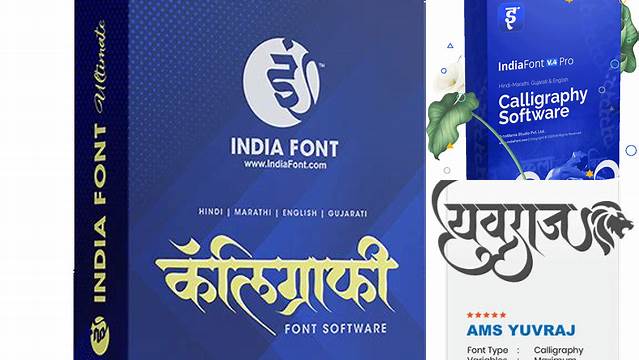
Hey guys! Ever needed some awesome Indian fonts for your projects? Maybe you're designing a website, creating some cool graphics, or just want to add a touch of India to your documents. Finding India font software free download with crack can seem a bit tricky, right? Well, no worries! This guide is here to help you navigate the world of free Indian fonts, explore where to find them, and understand the potential risks involved, especially regarding cracked software. Let's dive in and get you set up with some amazing fonts! Remember, using cracked software has its downsides, but we'll cover all that. Let's get started, shall we?
1. Unveiling the World of Indian Fonts: A Cultural Palette
India, a land of vibrant cultures and diverse languages, boasts a rich typographic heritage. From the elegant curves of Devanagari to the intricate strokes of Tamil, the fonts reflect the country's linguistic tapestry. When we talk about India font software free download with crack, it's crucial to understand the variety on offer. These fonts aren't just tools; they're extensions of language and cultural expression. Consider the elegant calligraphic styles inspired by Mughal art, or the bold, modern designs perfect for contemporary branding. Different regions of India have their unique scripts and font styles, each telling a story. Hindi, Marathi, Gujarati, Bengali, Tamil, Telugu, Kannada, Malayalam, and Oriya – each script has its own visual character, adding a unique flavor to any design. The availability of such a diverse set of fonts is a testament to the country's linguistic complexity. Finding the right font can significantly impact the overall look and feel of your work. Imagine crafting an invitation for a traditional Indian wedding, or designing a poster for a Bollywood movie – the correct font choice will be the difference between a good design and a fantastic one. Learning about the different font families and their historical origins is essential. Some fonts are designed for readability, while others prioritize aesthetic appeal. Certain fonts might be best for headings, while others are suitable for body text. Understanding the specific design style helps you choose the perfect font for your project. The journey of exploring Indian fonts is like embarking on a visual tour of India. From the ancient temples to the bustling markets, fonts offer a glimpse into the soul of India.
3.2 Legal Consequences and Ethical Considerations
Apart from the technical risks, the legal and ethical implications of obtaining India font software free download with crack are significant. Using cracked software is illegal, and you could face legal action from font designers or distributors. This can lead to heavy fines and potentially even more severe consequences. Piracy is theft; you are essentially stealing intellectual property. This affects the font designers and their ability to get paid for their hard work. The ethical considerations are just as important. Font designers deserve to be compensated for their creative work. Using cracked software sends the message that their labor isn't valuable. When you support piracy, you contribute to a culture that devalues creativity and innovation. If you are a business, using cracked software could damage your reputation. It creates an image that your company is not trustworthy. The best way to avoid these problems is to respect copyright laws and only use fonts from legitimate sources. By supporting the font designers, you're encouraging them to keep creating. Legal alternatives, such as free fonts from Google Fonts or commercial fonts, are often available at a reasonable cost. They provide peace of mind, legal protection, and support the creative community. Be mindful of what you download and how it may impact others.
4. Exploring Alternative Solutions: Free and Legal Font Options
Instead of searching for India font software free download with crack, why not explore the wealth of free and legal font options available? This approach not only keeps you safe but also ensures you're supporting the designers and their work. Google Fonts is a fantastic starting point, offering a variety of Indian fonts under open-source licenses. This means you can use them for any project, even commercial ones, without any legal concerns. There are also numerous other websites specializing in free fonts, but always make sure to check the license details before using them. Look for licenses such as the SIL Open Font License, which permits free use and modification. When looking for a specific Indian font, try searching on Google Fonts by language. This makes it easy to find the fonts that support the script you need. Font Squirrel is another valuable resource, where you can discover a curated selection of free fonts. The site is user-friendly and offers fonts that have been carefully reviewed for quality. You can also find commercial fonts for purchase. These often provide even more features and design options. These legal alternatives provide peace of mind and save you from any legal troubles. By choosing legitimate options, you contribute to a creative ecosystem that rewards talented designers.
5.1 Font Installation Problems: Common Fixes
Encountering font installation issues with your India font software free download or other fonts? Don't worry; it's common, and there are several things you can try. Check your operating system's font installation guide. Windows and macOS each have different procedures for installing fonts. Ensure you're following the correct steps. Verify that you've downloaded the correct file format. TrueType (.ttf) and OpenType (.otf) are the most commonly used. Older formats may not be compatible with newer systems. Double-check that you have the correct permissions. You may need administrator access to install fonts on your computer. If the font still won't install, try a manual installation. In Windows, this usually involves right-clicking the font file and selecting